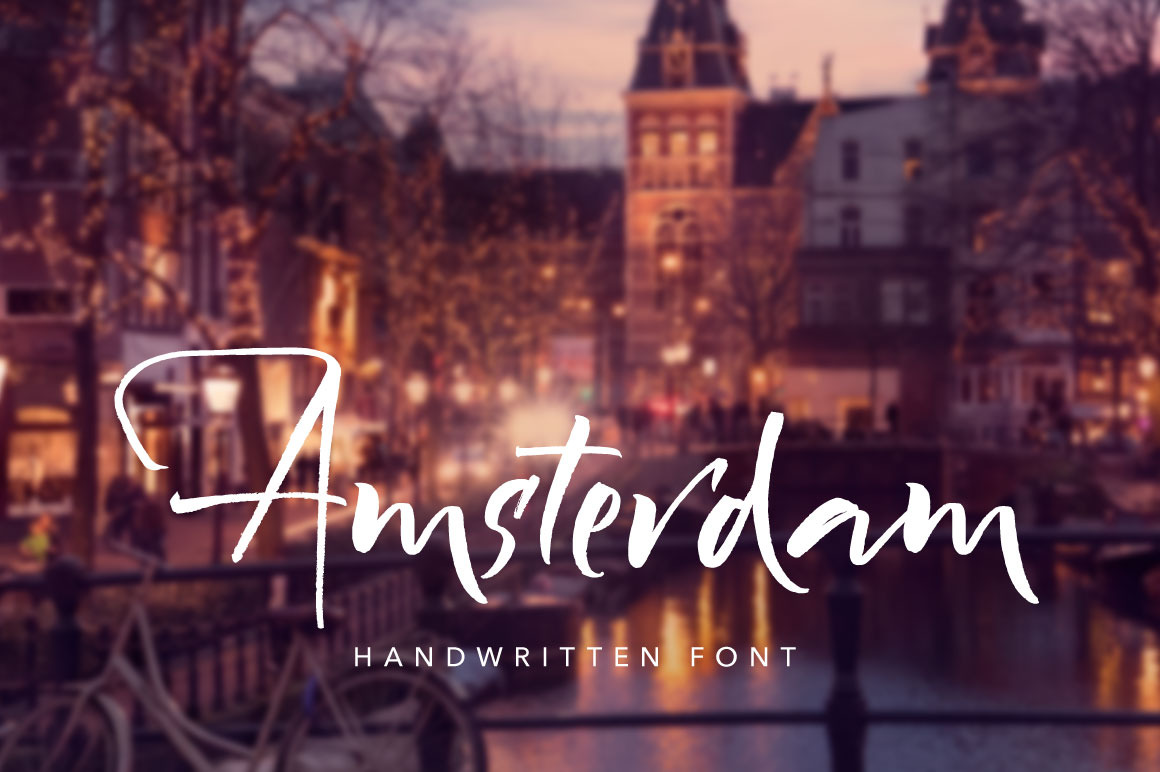
Amsterdam Handwritten Font
Introducing Amsterdam handwritten script font
A handwritten script font containing upper & lowercase characters, numerals, punctuation and a ton of ligatures.
Font includes multilingual support: English, Polish, Spanish, German, Portuguese, Italian, French. A lot of ligatures and alternative letters. Provided in TTF, WOFF and EOT formats